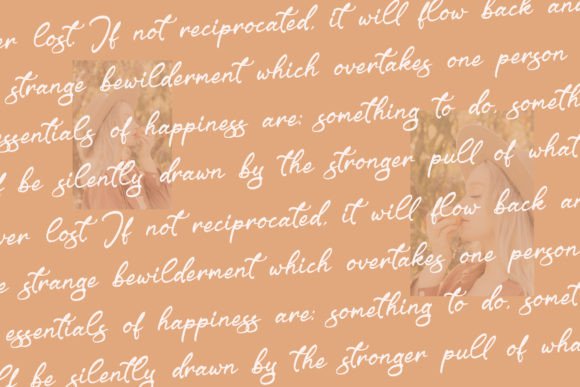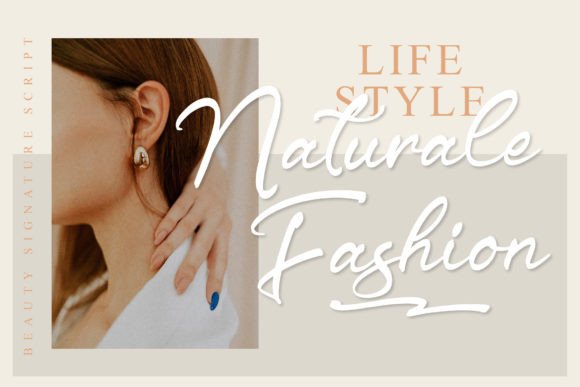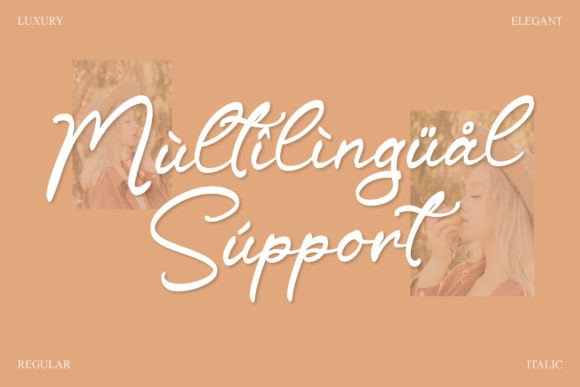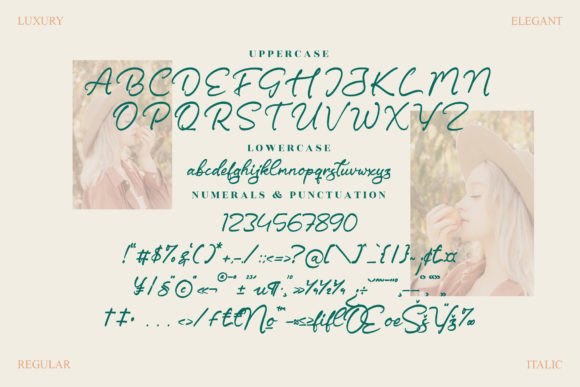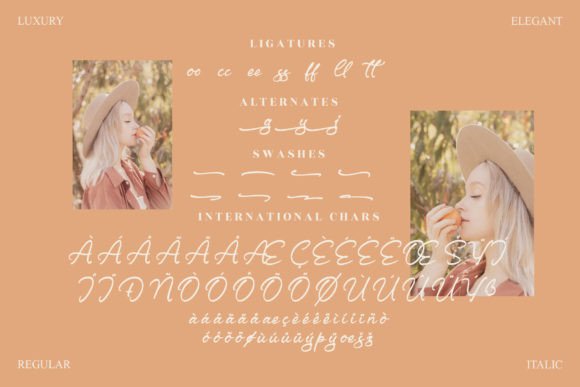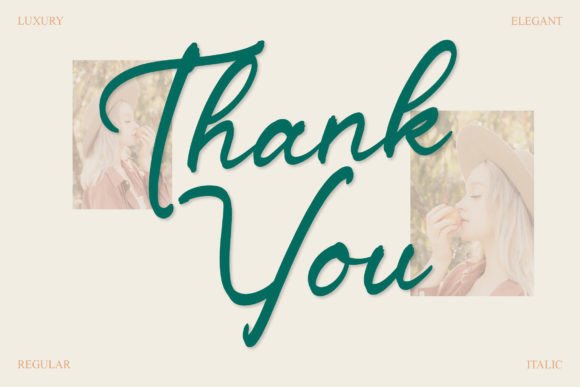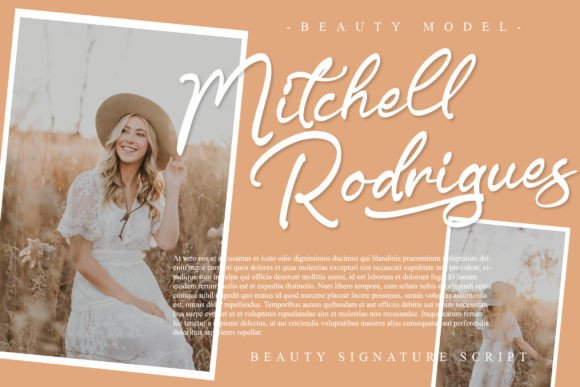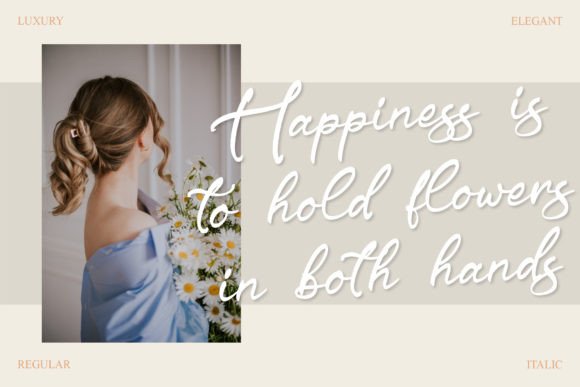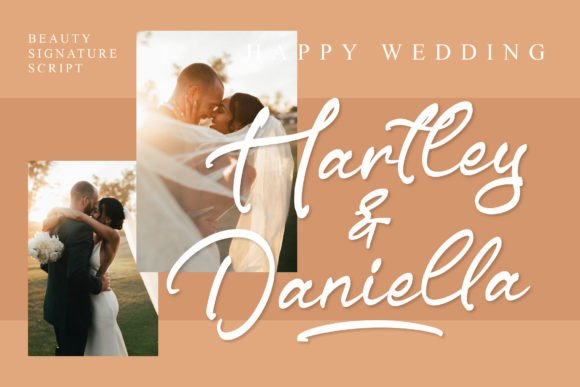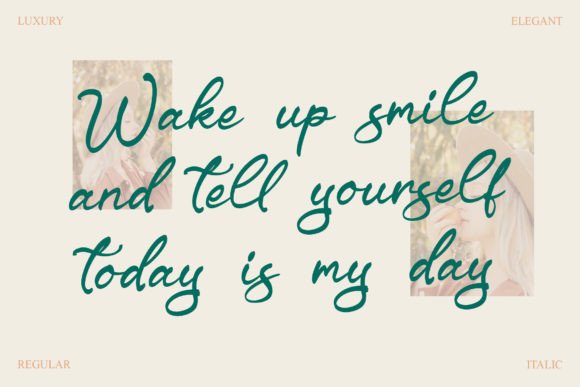
Driscutty Font
About Driscutty Font
Introducing Driscutty Signature, a signature font with a stylish handwritten feel, brimming with curves, swashes, lines, and more. The exceptional balance in every word makes it truly extraordinary. This font is crafted to perfection, making it ideal for a variety of applications such as greeting cards, magazines, headers, social media, and more.
The beauty of Driscutty Signature lies in its handwritten charm, which adds a personal and stylish touch to your projects. The curves, swashes, and lines enhance the visual appeal, creating an extraordinary balance that sets it apart.
Whether you’re crafting greeting cards with heartfelt messages, designing captivating magazine layouts, or creating eye-catching headers for websites and social media, Driscutty Signature rises to the occasion. Its versatile and stylish nature makes it suitable for a wide range of creative endeavors.
In the world of greeting cards, Driscutty Signature brings a unique and personalized touch to your messages. Its stylish handwritten feel adds warmth and authenticity, making your cards stand out and leave a lasting impression.
Magazines benefit from the exceptional balance and flair of Driscutty Signature, making it a perfect choice for titles, subheadings, and other design elements. Its readability and style contribute to a visually pleasing and cohesive layout.
For headers on websites and social media platforms, Driscutty Signature adds a touch of elegance and personality. Its PUA encoding ensures easy access to a variety of amazing glyphs and ligatures, allowing for creative customization to suit your brand or message.
The font’s versatility allows it to adapt seamlessly to various design contexts, creating a harmonious and stylish aesthetic. Driscutty Signature is not just a font; it’s a creative tool that empowers you to elevate your designs with a signature style that stands out.
In conclusion, Driscutty Signature is a font that combines style, readability, and personality. Its PUA encoding ensures a smooth design process, providing access to a variety of amazing glyphs and ligatures. Choose Driscutty Signature for your next project and let its stylish handwritten feel bring an extraordinary touch to your creative work.